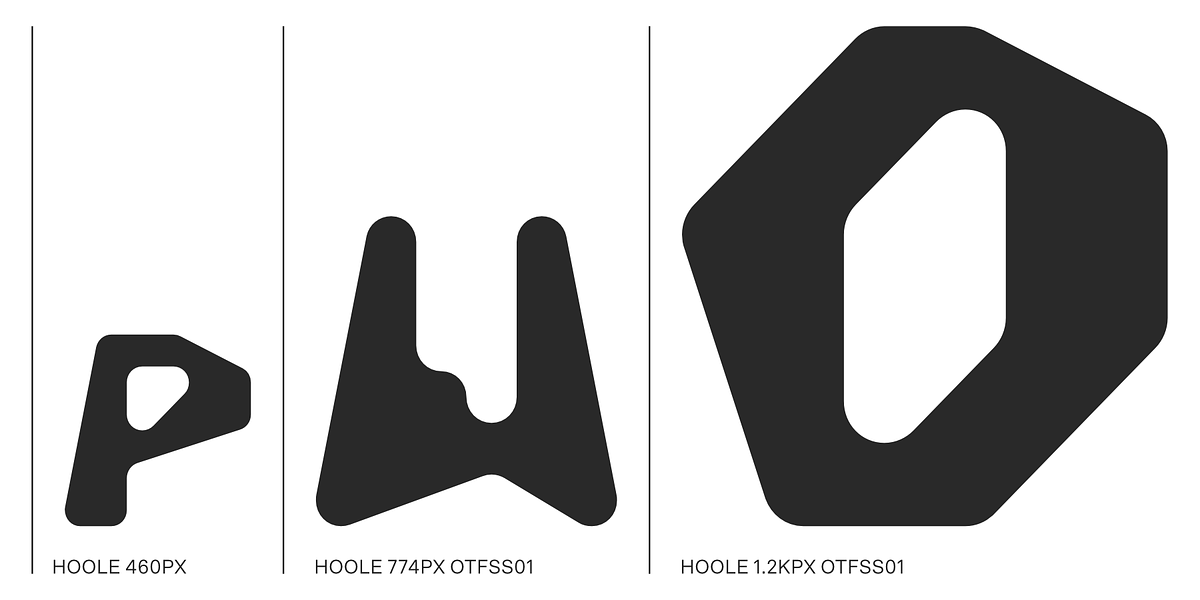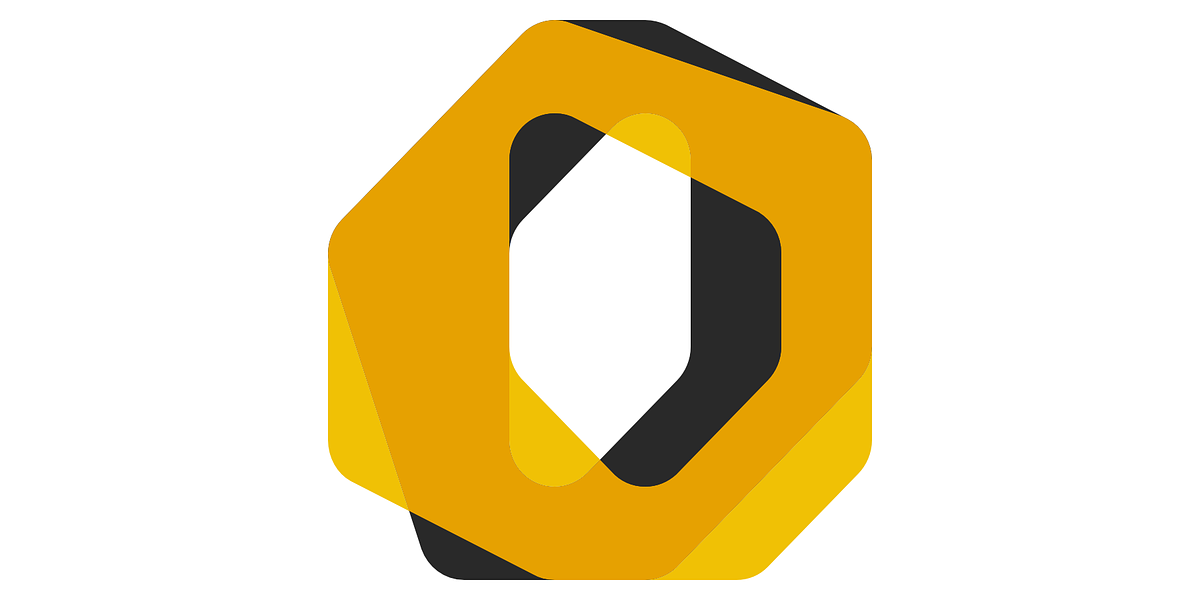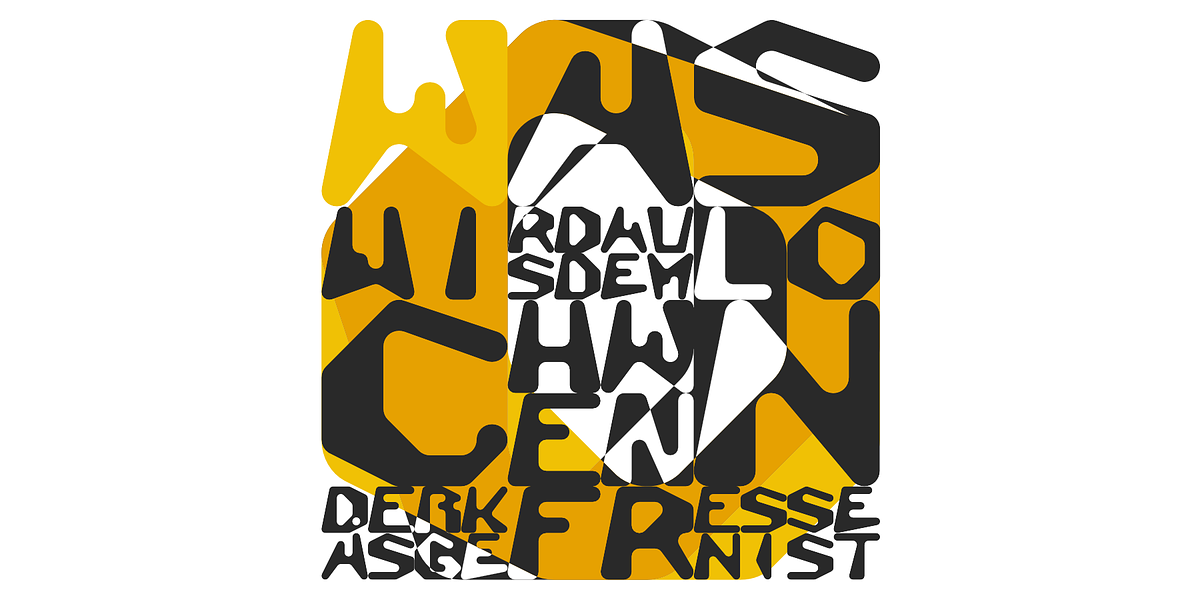
HOOLE
With HOOLE you explore the limits of the graphic possibilities within the Latin writing system. All glyphs of this type experiment are based on a grid of six circles arranged in several rows. Despite this strictly geometric, artificial grid, the glyphs appear highly organic. Just like random shapes of viscous glass. HOOLE contains the unicode blocks latin basic and latin additional. The display font is composed exclusively of majuscules and contains an Stylistic Set (ss01).